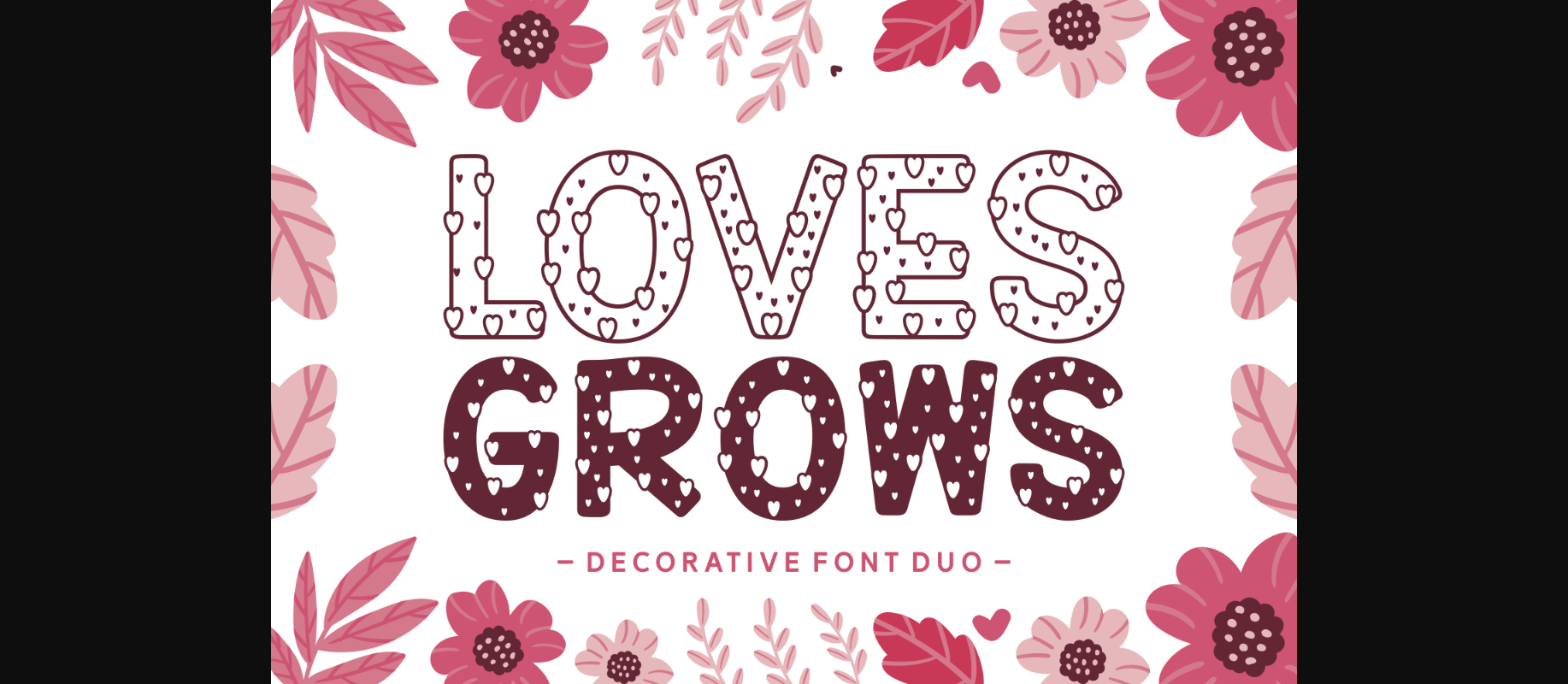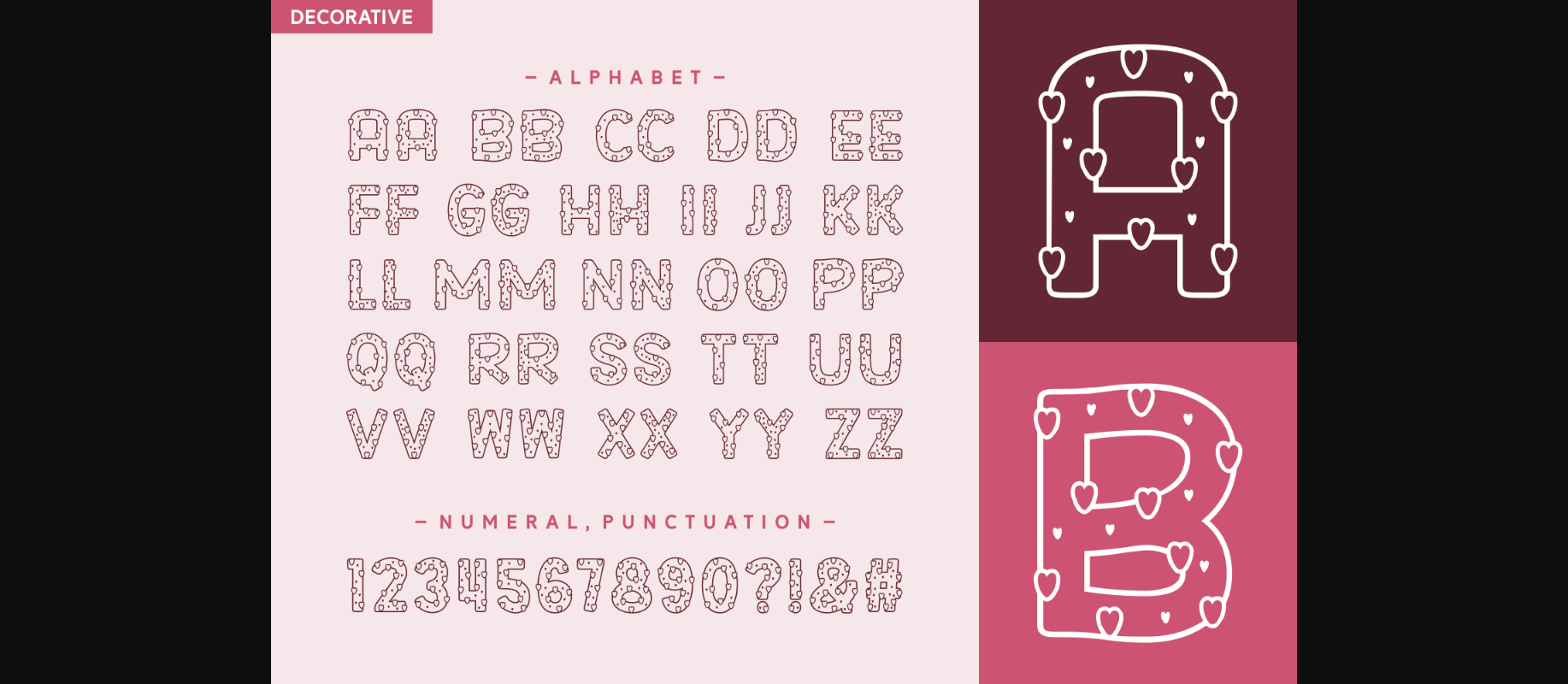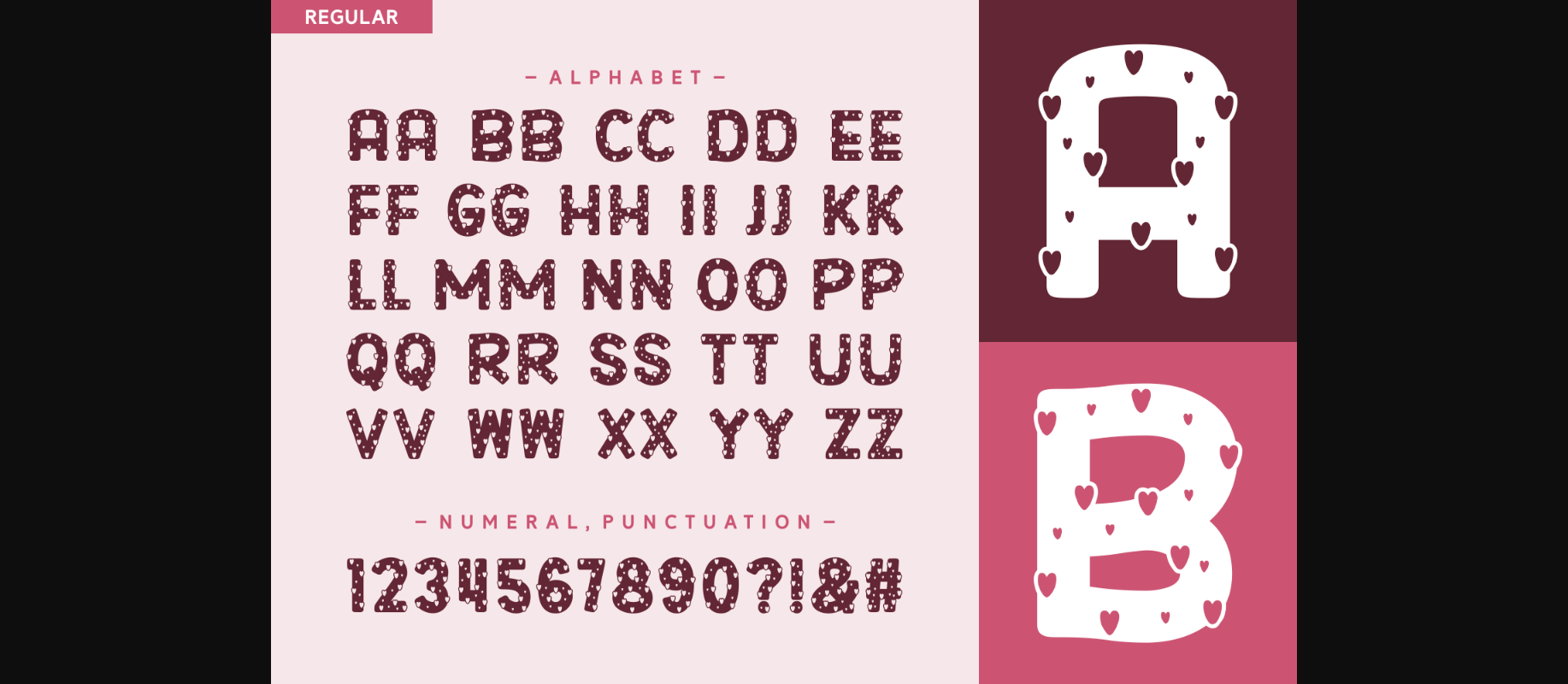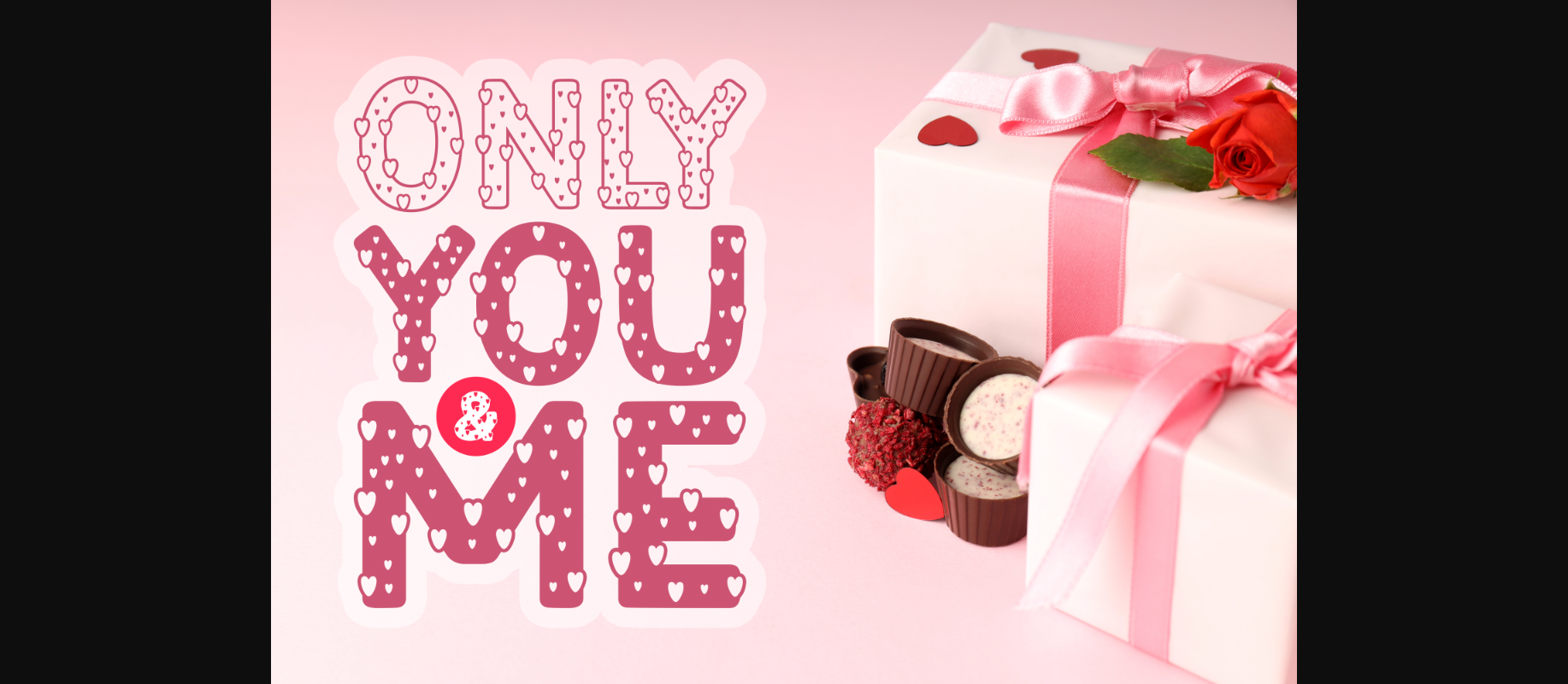
About Loves Grows Font
Loves Grows is a romantic decorative font full of cute little hearts throughout the letters. It is perfect for all your Valentine’s Day cards, stickers, party invites, or anything that helps you declare your love!